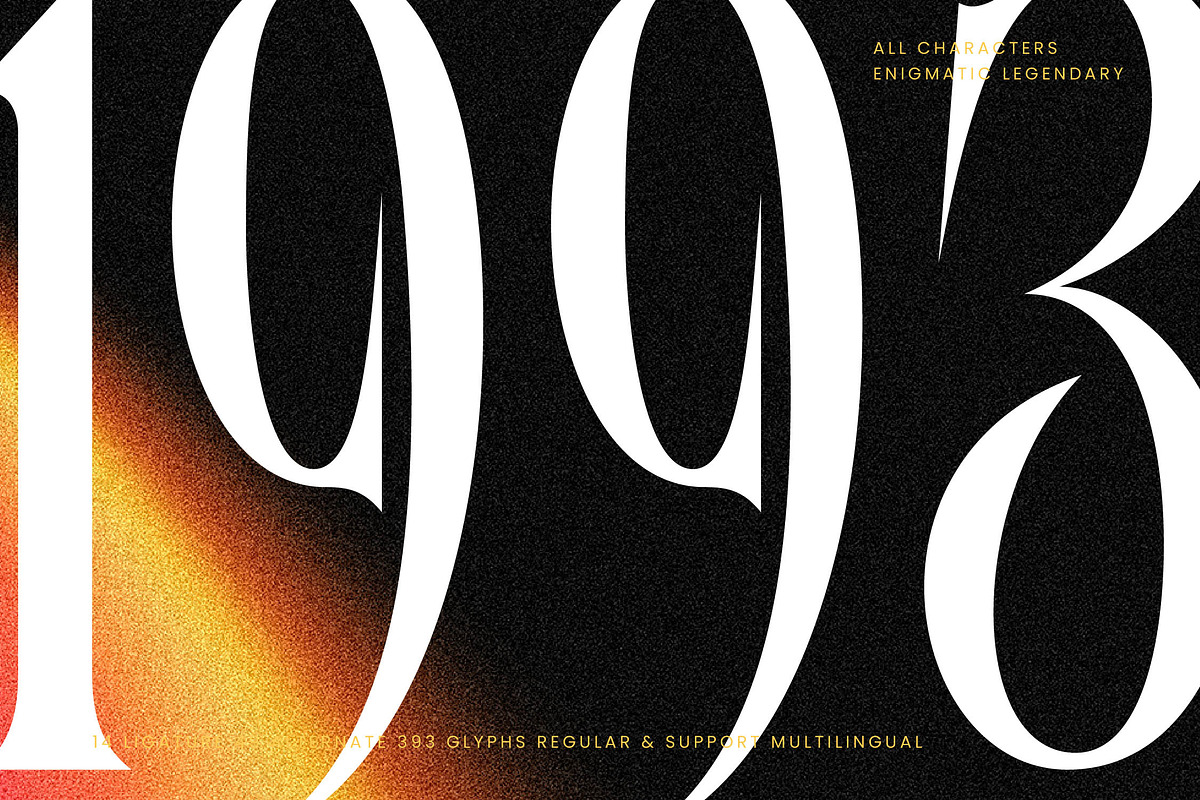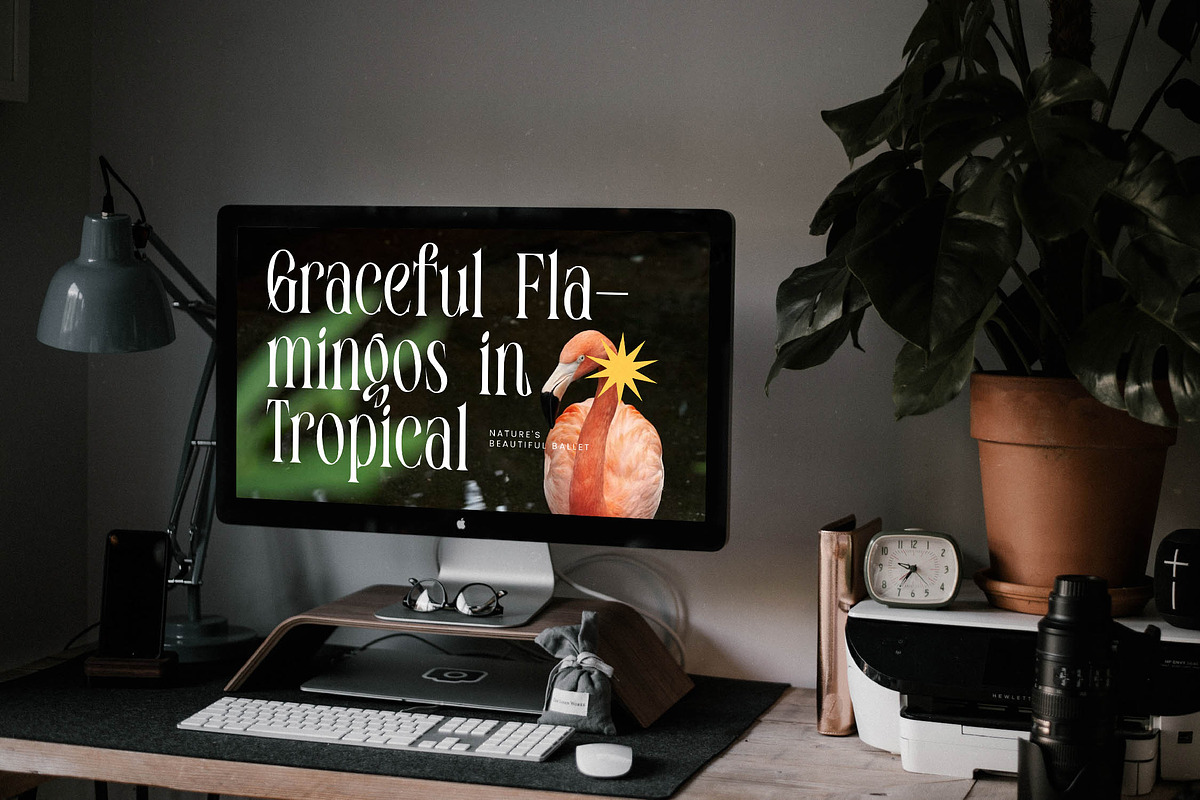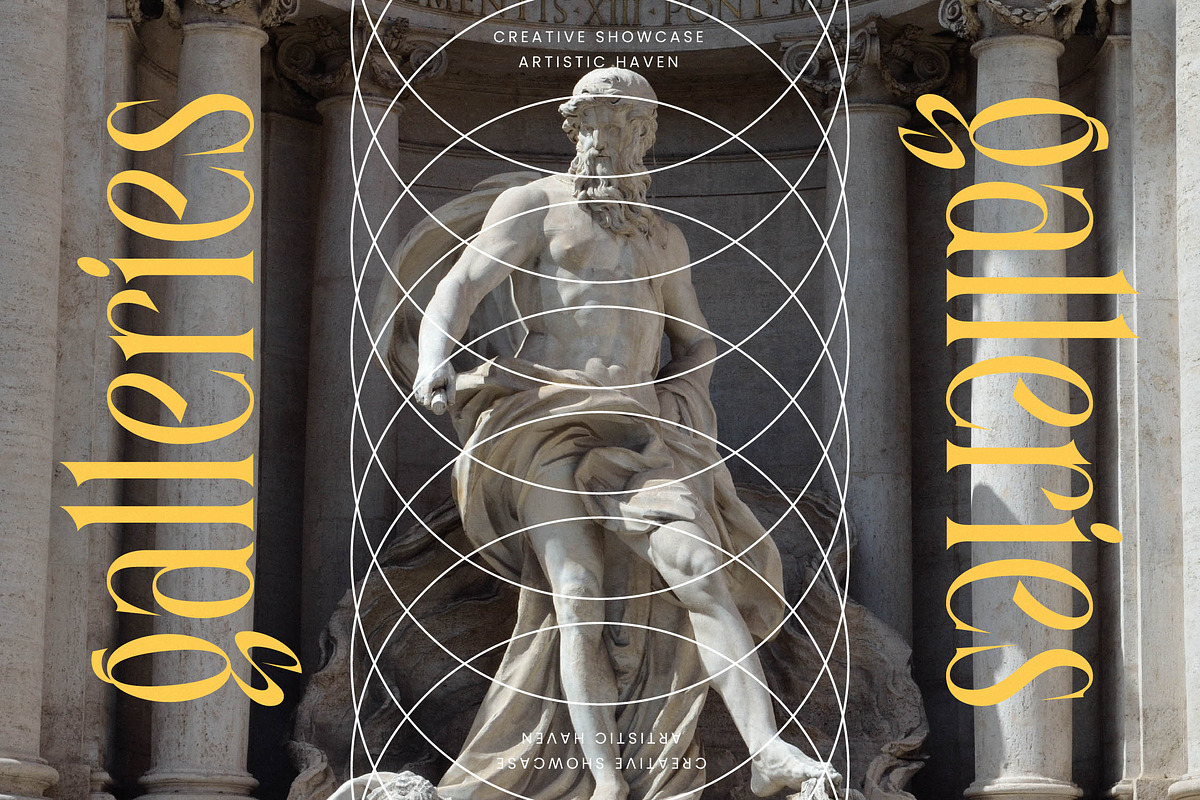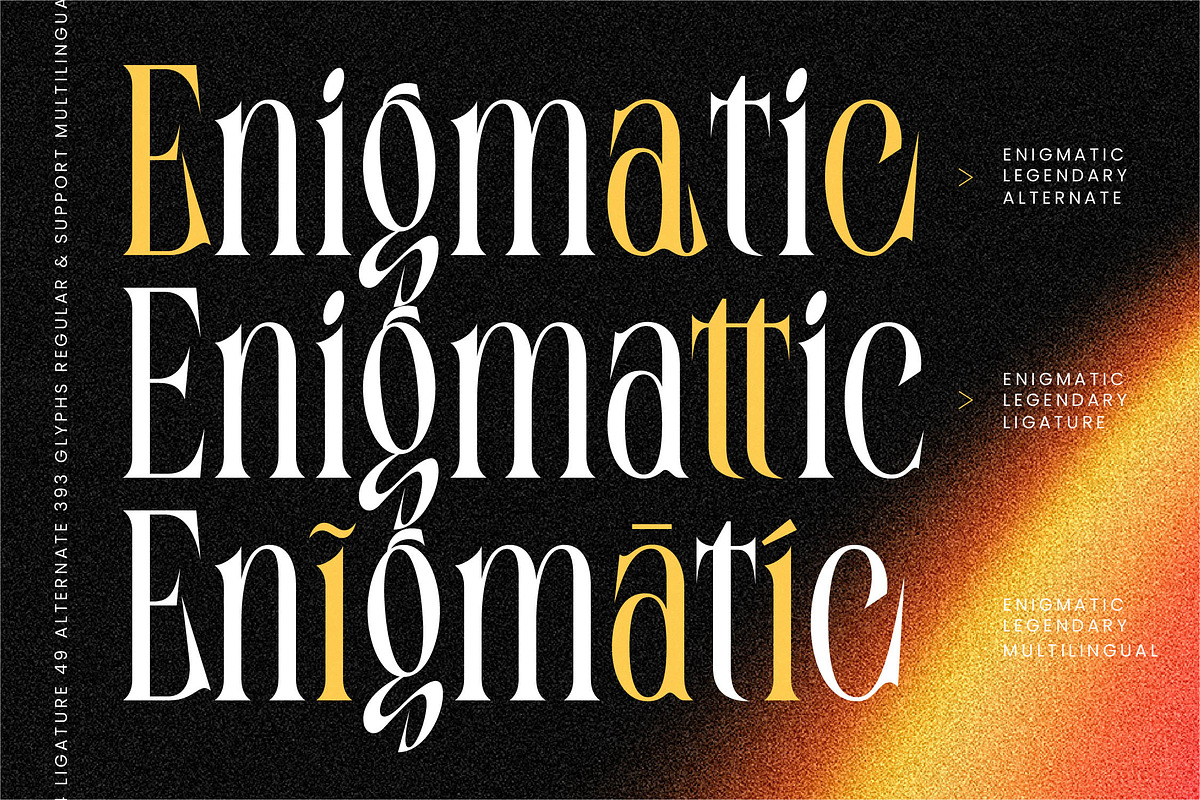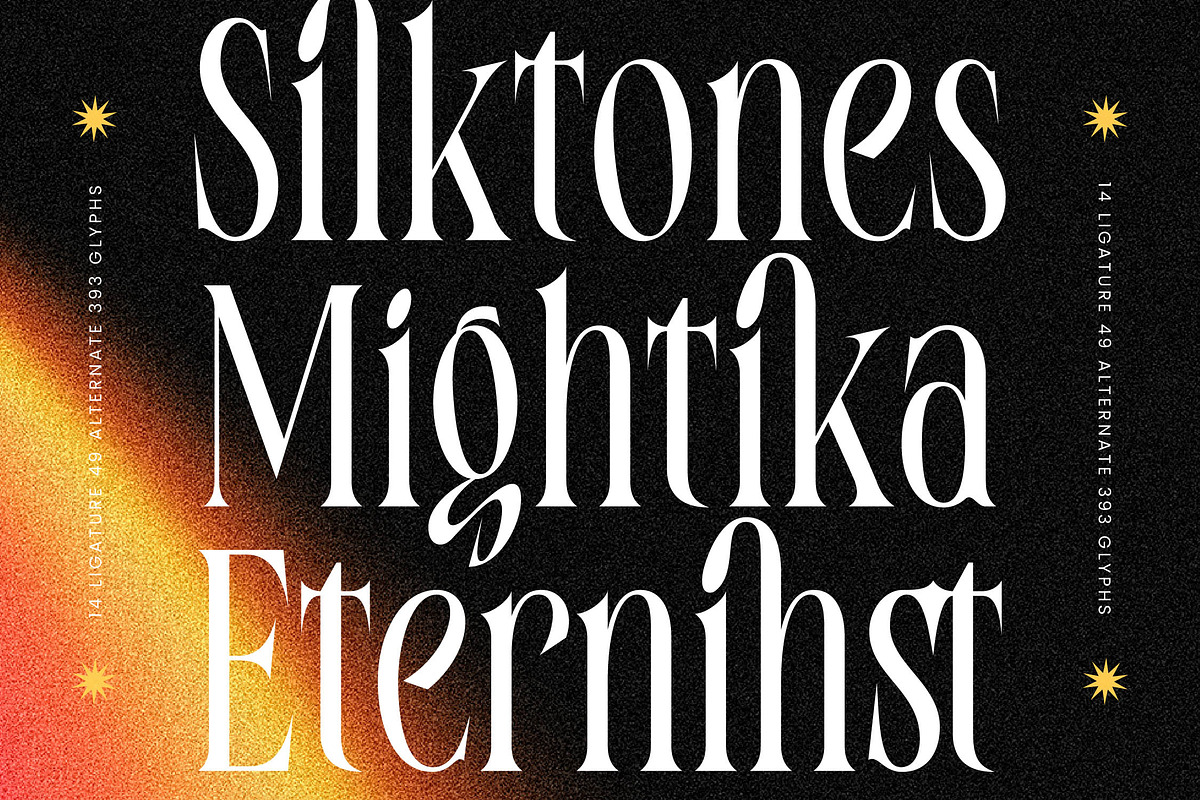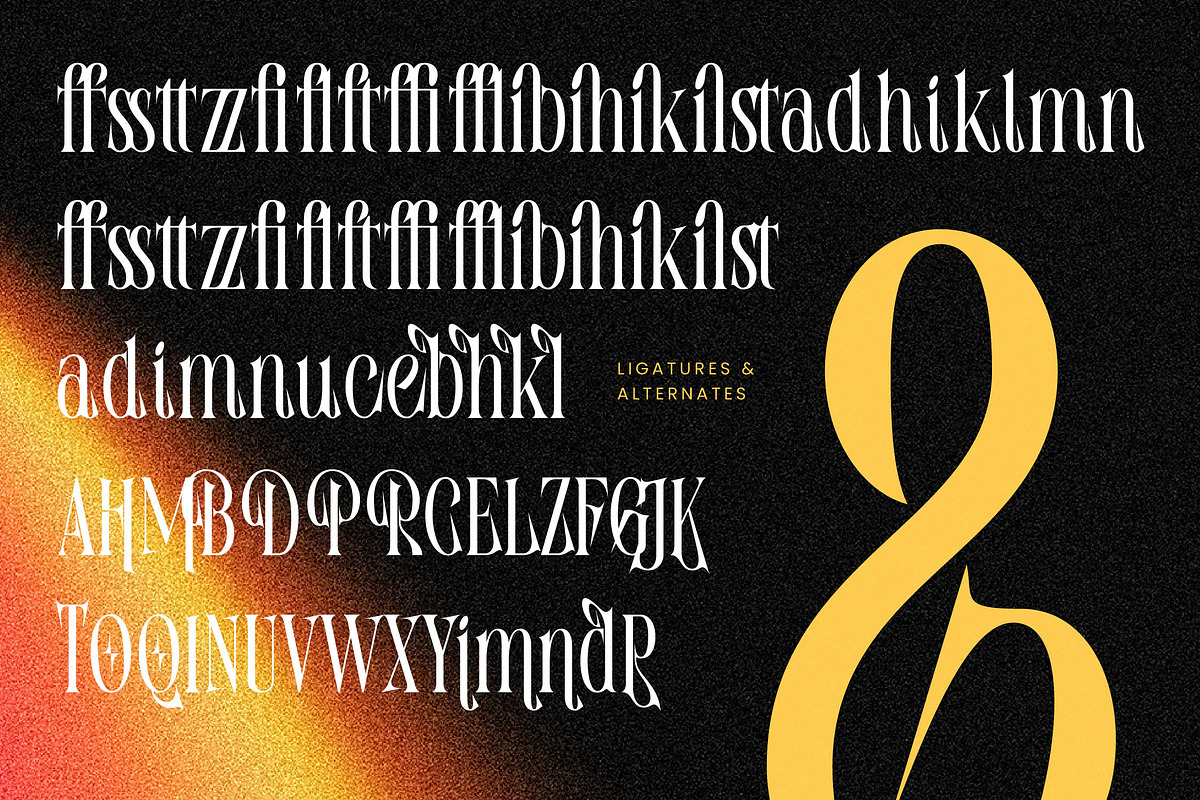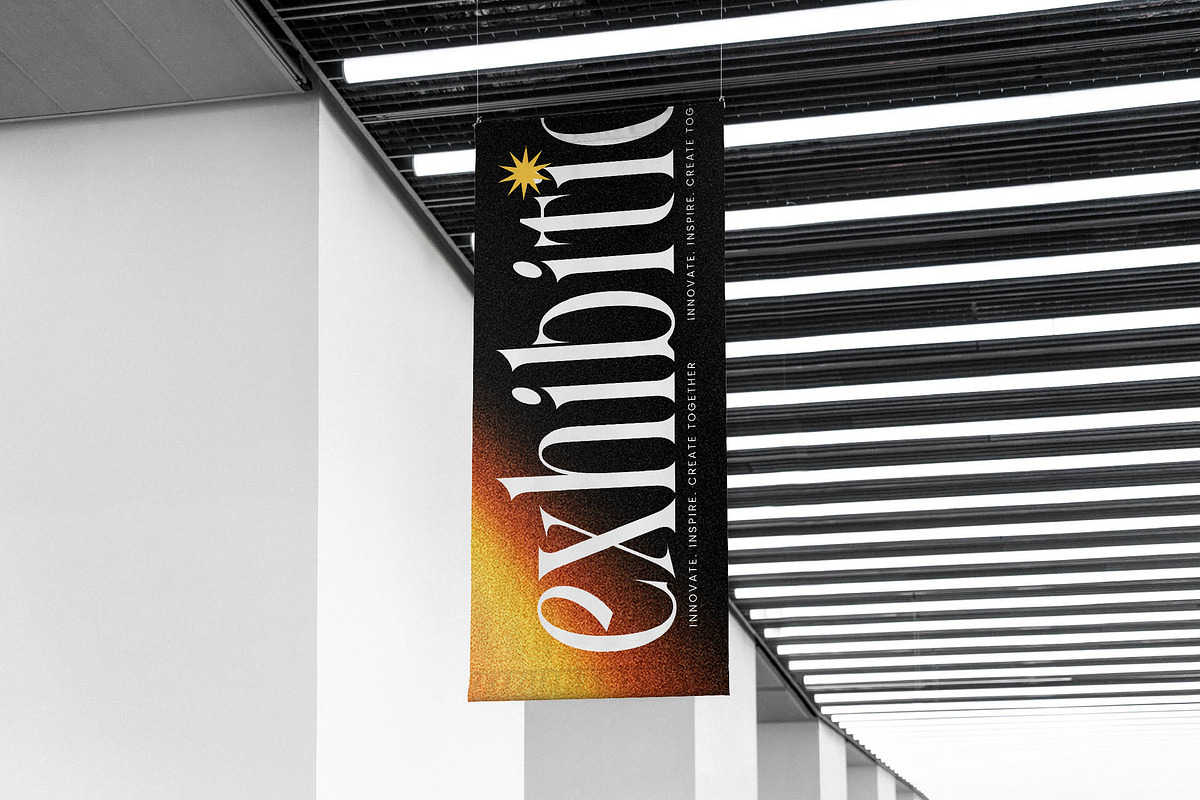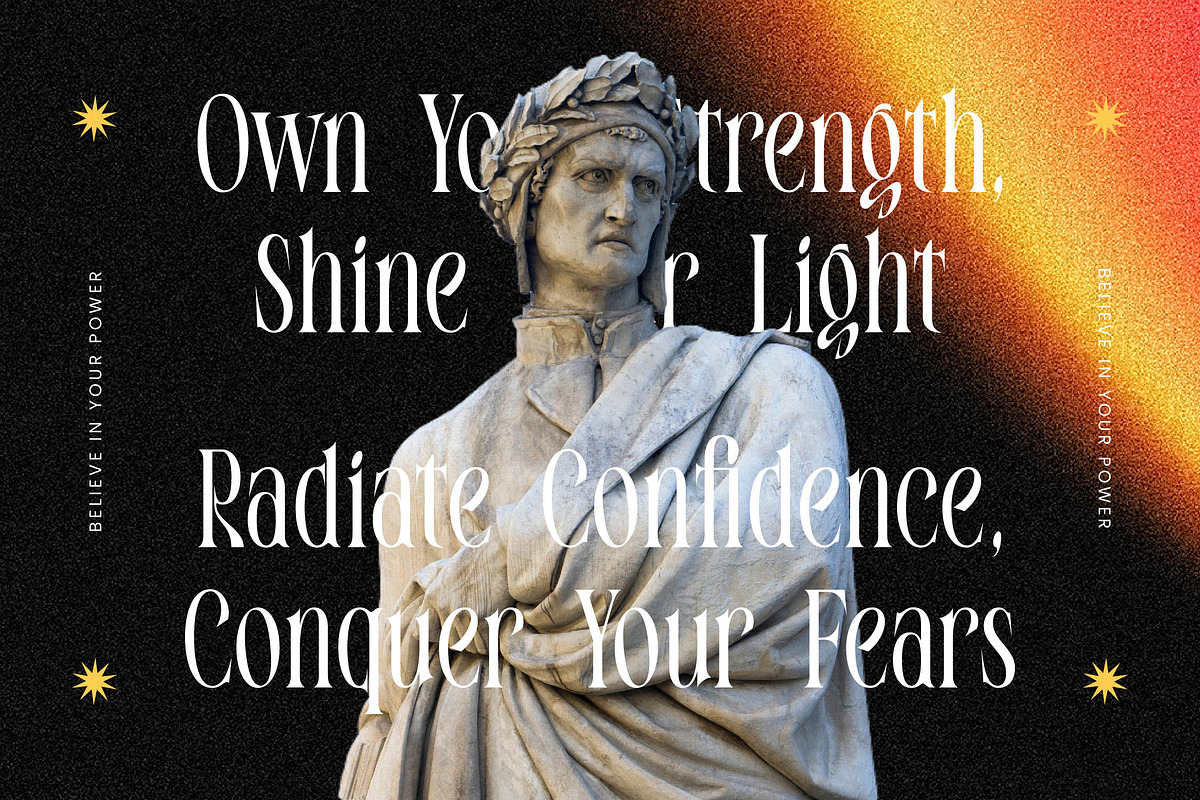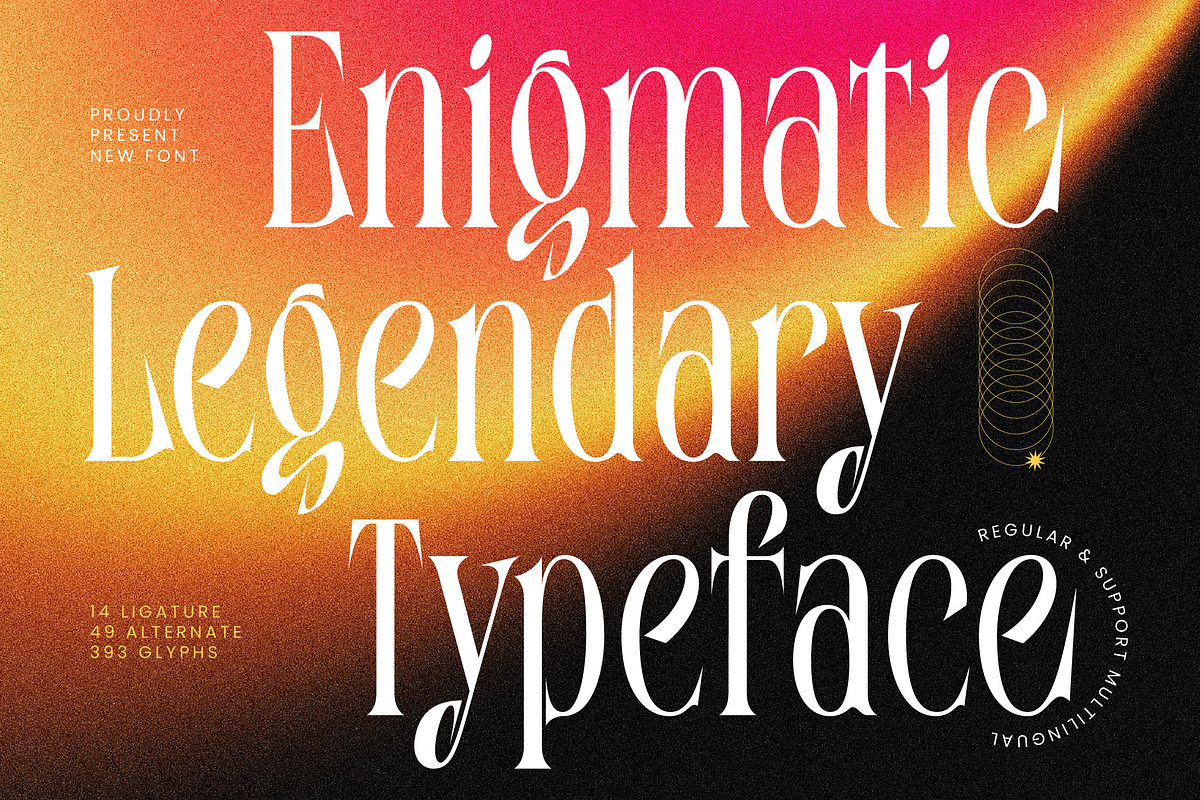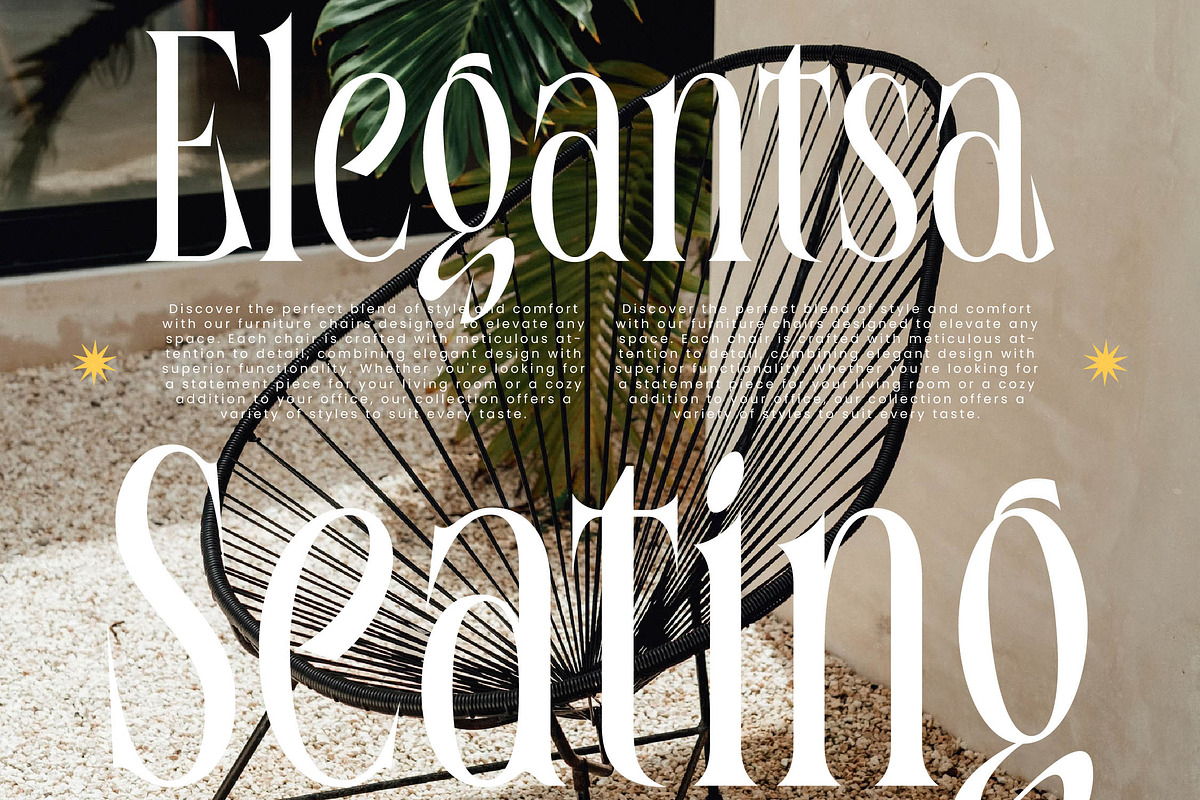
Enigmatic Legendary Modern Serif
Experience the captivating allure of Enigmatic Legendary, a typeface designed to command attention with its striking presence and sophisticated charm. This masterfully crafted font elevates every word into a piece of art, blending mystery with timeless elegance.
Drawing inspiration from the intersection of occult aesthetics and high-fashion editorial layouts, this typeface captures a hauntingly beautiful spirit. It channels the energy of vintage luxury branding while introducing sharp, contemporary angles that reflect the soul of modern craftsmanship.
This modern serif display choice exudes an aura of exclusive sophistication, making it the ultimate tool for luxury typography projects. With its high-contrast serif strokes and narrow proportions, it delivers a powerful editorial font aesthetic designed for maximum branding impact.
Perfectly aligned with the current modern serif trend, this typeface meets the demand for editorial display fonts that feel unique and expressive. Its ability to bridge the gap between classic structure and experimental form makes it a staple for designers seeking character-driven typography.
Transform your next project with a font ideal for high-end logo design, sophisticated corporate branding, and striking editorial spreads. Whether you are developing luxury packaging, elegant wedding stationery, or bold fashion lookbooks, this typeface ensures a memorable and prestigious result.
Unlock creative versatility with a comprehensive set of ligatures and alternates that allow for custom-tailored headlines and unique wordmarks. The font also includes decorative swashes and full multilingual support with international characters to cater to global design needs.
- Ligature 14 Alternate 49